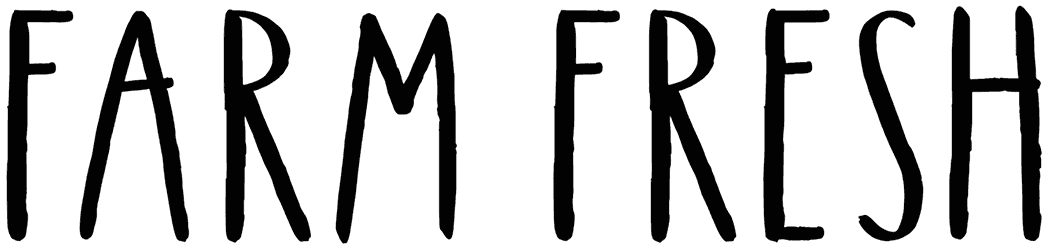
Farm Fresh Font
We believe that an all-caps script font, the same as the Farm Fresh, really deserves to be on your radar in the realm of designing stickers, blog posts, product packaging, billboards, or applications. This farmhouse font…
We believe that an all-caps script font, the same as the Farm Fresh, really deserves to be on your radar in the realm of designing stickers, blog posts, product packaging, billboards, or applications.
This farmhouse font comes with tall and thin letters; thus, it can bring a sense of jauntiness, eeriness, vitality, or vivacity to all of your work. In addition to the aforementioned details, don’t forget to check out the RB archive for daily updates.